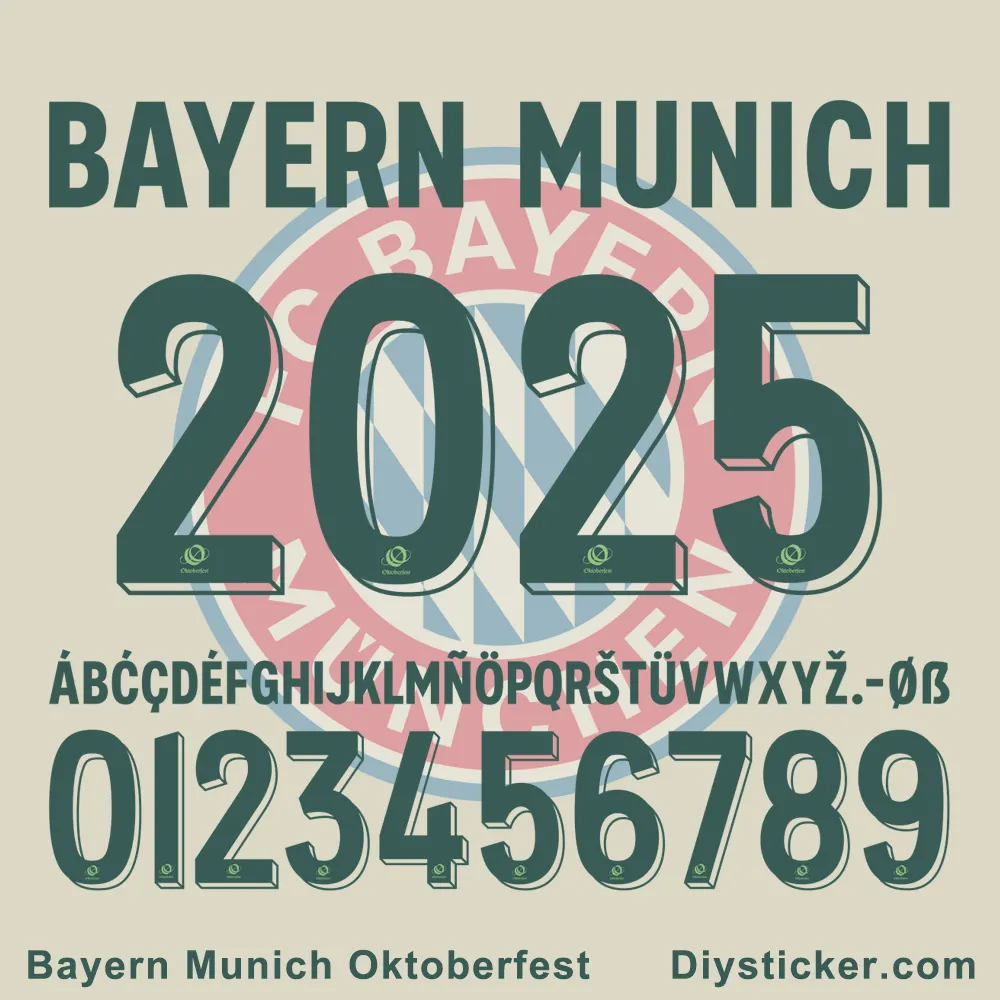
Bayern Munich 2025 Oktoberfest Font Downloads
Celebrate the Bavarian tradition with the official Bayern Munich 2025-26 Oktoberfest Font. This special edition typeface features unique decorative elements inspired by Munich’s world-famous festival, perfect for creating authentic Oktoberfest-themed FC Bayern designs.